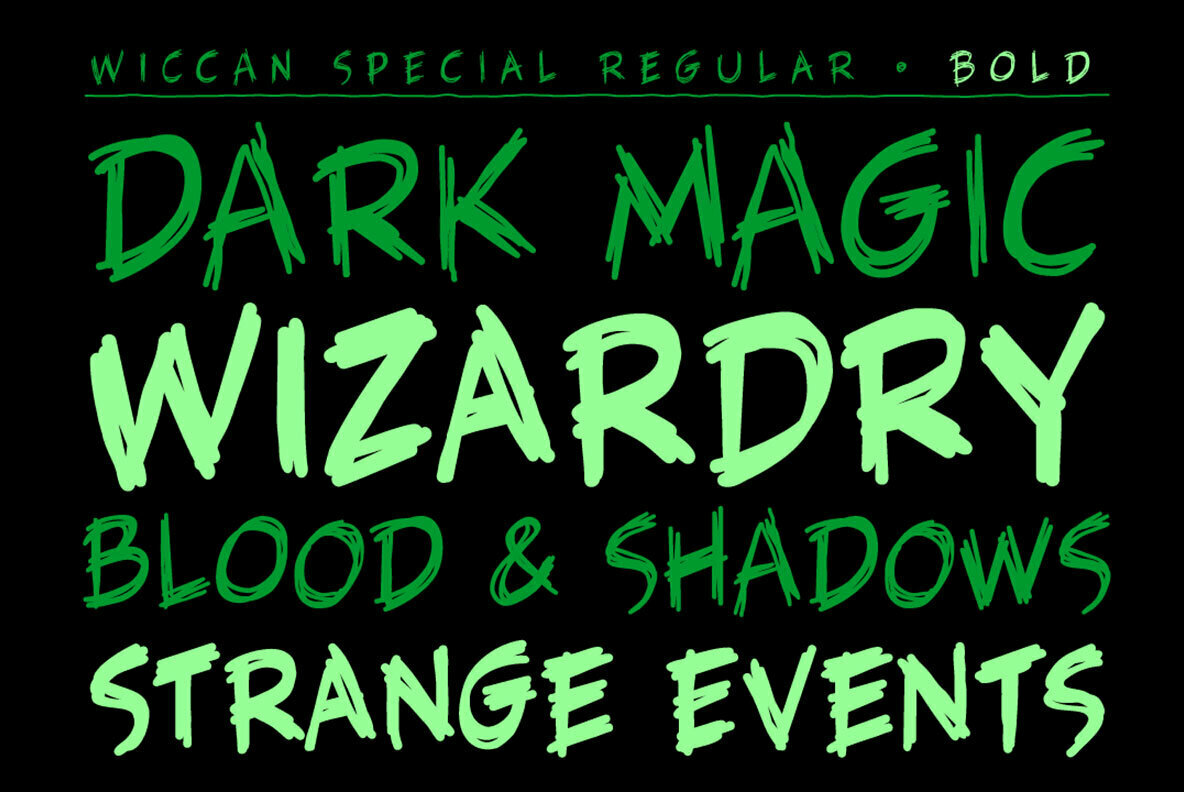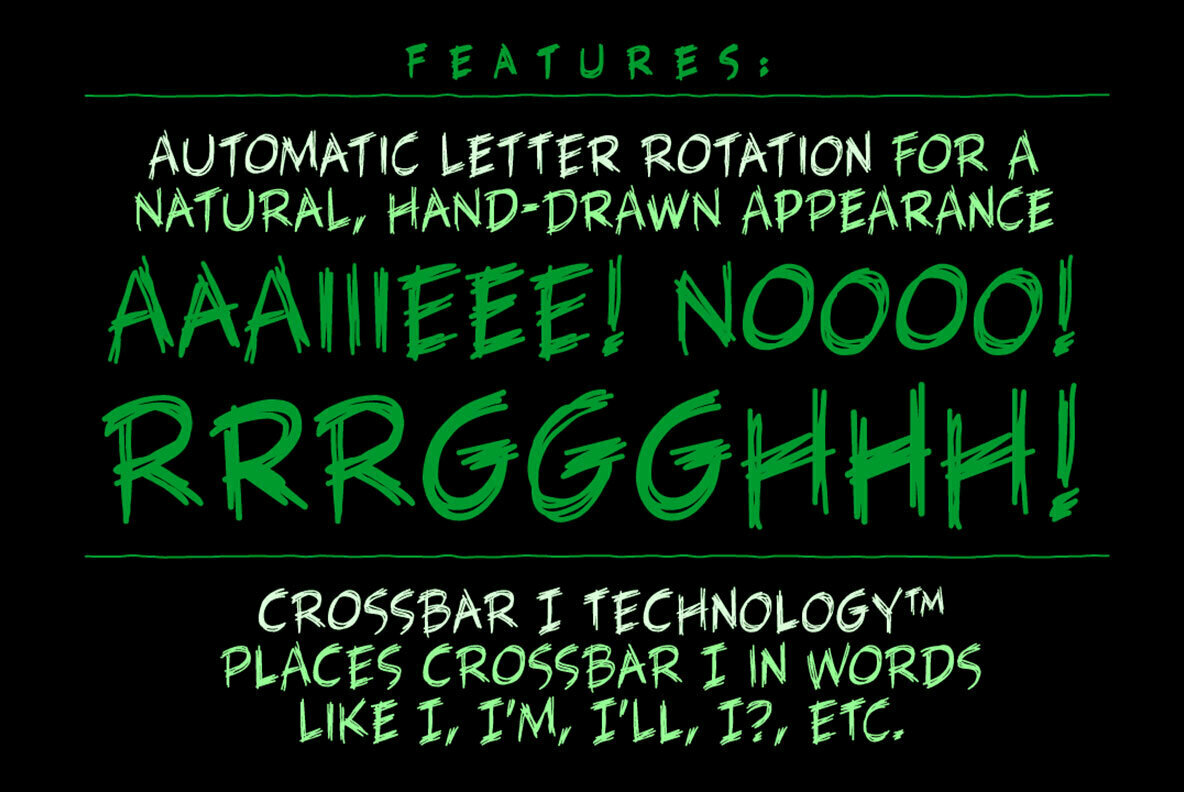
In 1996, three student letterers went into the forest looking for the mysterious fonts used to letter Spawn: Blood & Shadows. They never returned. A year later, their fonts were found.
Wiccan Special includes Western & Central European and Cyrillic characters, automatically cycling alternates and Comicraft's patented Crossbar I Technology.